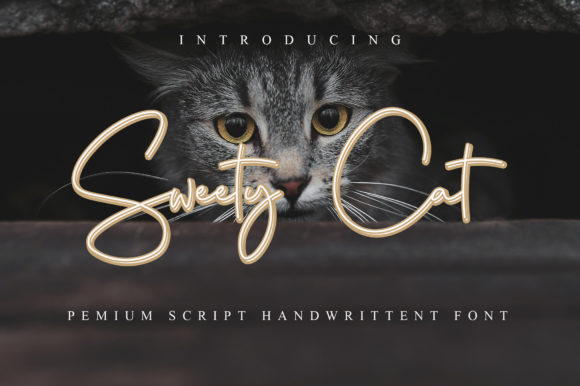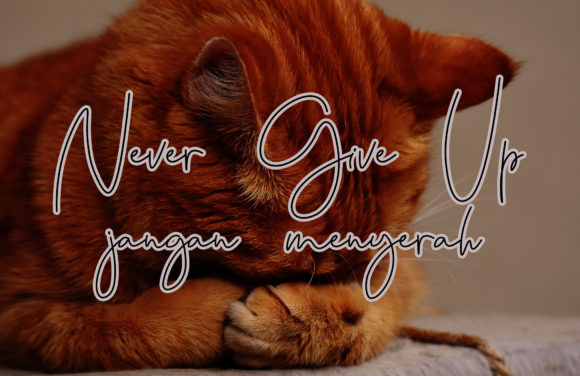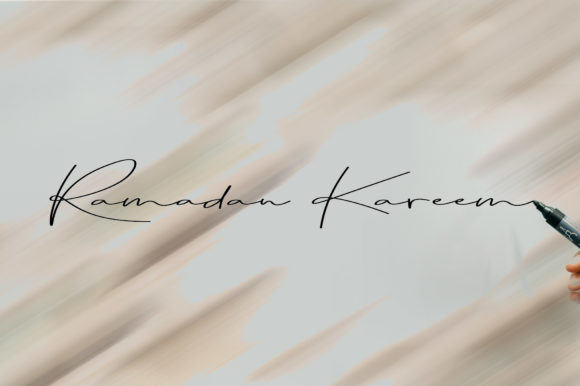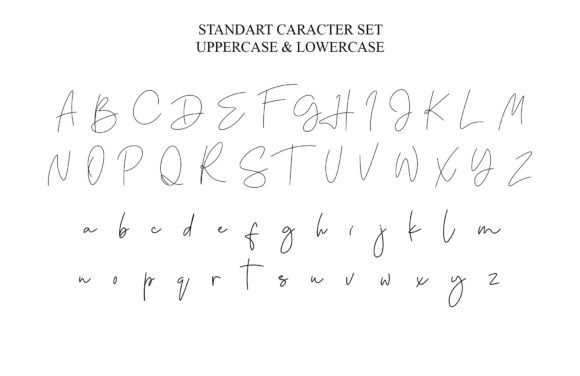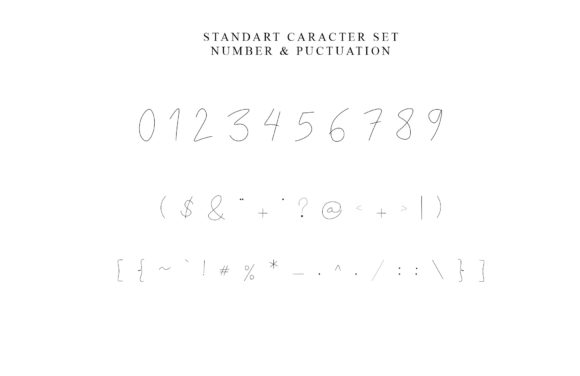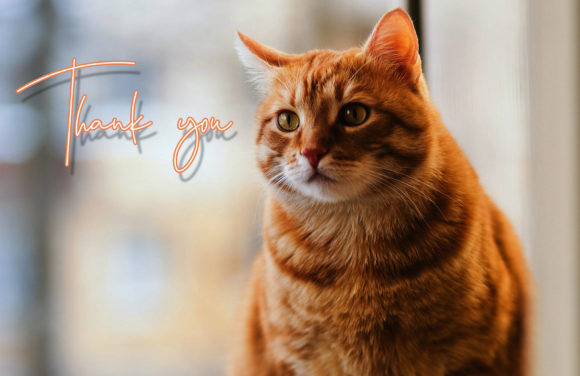
Sweety Cat Font
About Sweety Cat Font
Sweety Cat is a lovely and thin lettered script font that exudes elegance and class. This font was particularly crafted for those who need a beautiful and refreshing look to their designs.